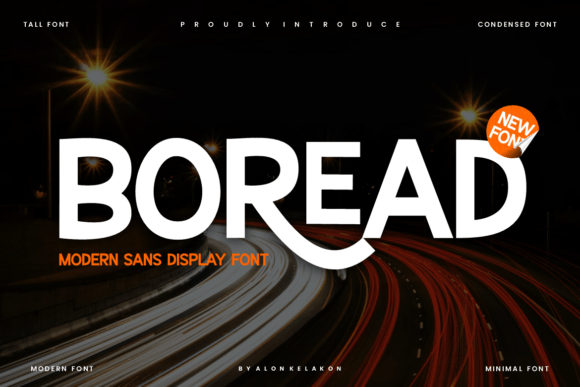
The Perfect Font for Making a Statement
Have you ever been stuck on a design project, staring at a blank page, trying to come up with the perfect font to capture the essence of your idea? It’s a common struggle many designers face. But what if I told you that there’s a font that can take your designs to the next level, making them stand out in a crowded market?
Enter the Boread Font, a modern sans-serif display font that exudes confidence and professionalism. With its bold and dynamic appearance, Boread Font is perfect for headlines, branding, posters, and modern advertisements. Its tall and condensed structure makes it a valuable tool for designers looking to add a touch of sophistication to their work.
Whether you’re a seasoned pro or just starting out, the Boread Font is a game-changer that can elevate your designs and leave a lasting impression on your audience.
Boread Font Key Features
- Font Family: Boread Font is a sans-serif font family, designed to be clean and modern.
- Unique Characteristics: Boread Font features a unique blend of geometric and organic elements, creating a distinctive and modern aesthetic.
Boread Font Review
Overall, I’m impressed with the clean lines and elegant feel of the Boread Font. ✨ The font’s versatility shines through in its various weights and styles, making it a great addition to any project.
One of my favorite features of the Boread Font is its legibility. ✨ Whether you’re using it for body text or headings, the font is easy to read and understand. It’s also a great choice for digital applications, where screen readability is crucial.
While the Boread Font is a solid choice, there are a few limitations to consider:
- ⚠️ Limited language support: The font may not include all the characters you need for certain languages, which could be a problem for global projects.
- ⚠️ Not ideal for very large or very small text: While the font is legible, it may not be the best choice for very large or very small text sizes, where it may become difficult to read.
- ⚠️ May not be suitable for complex typography: The font is designed to be clean and simple, which may not be suitable for projects that require complex typography or intricate designs.
Overall, I think the Boread Font is a great choice for many projects. While it has some limitations, its clean lines and elegant feel make it a solid addition to any design.
For best results, use Boread font for headings and titles to add a touch of elegance to your designs.
Use Boread font to create unique and eye-catching typography in your designs.
Use Boread font to add a touch of sophistication to your presentations and documents.
The Boread font is ideal for:
- Designing elegant headings and titles.
- Creating unique and eye-catching typography.
- Adding a touch of sophistication to presentations and documents.
Remember to experiment with different font sizes, colors, and settings to get the most out of the Boread font.
Alternatives to Boread Font for Designers
Playfair Display is a luxurious and elegant serif font ideal for high-end branding, invitations, and luxury packaging. It is perfect for designers who want to create a sophisticated and refined atmosphere.
Comparison to Boread Font: Playfair Display has a more traditional and formal feel, whereas Boread Font is more modern and minimalist. Playfair Display is better suited for projects that require a touch of elegance and sophistication.
Great Vibes is a modern and elegant script font perfect for creating a warm and inviting atmosphere. It is ideal for designers who want to add a personal touch to their projects.
Comparison to Boread Font: Great Vibes has a more relaxed and casual feel, whereas Boread Font is more modern and minimalist. Great Vibes is better suited for projects that require a friendly and approachable tone.
Ostrich Sans is a modern and minimalist sans-serif font perfect for creating a clean and modern atmosphere. It is ideal for designers who want to create a professional and sophisticated look.
Comparison to Boread Font: Ostrich Sans has a more minimalist and clean feel, whereas Boread Font is more modern and has a unique aesthetic. Ostrich Sans is better suited for projects that require a clean and modern look.